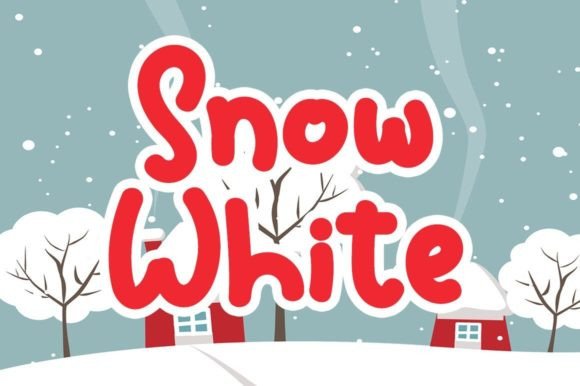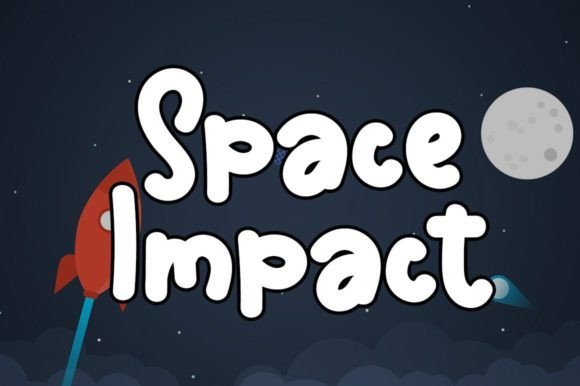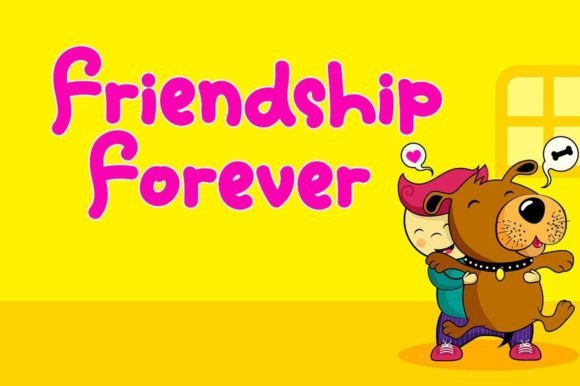
Unveiling the Charm of Behind Scene Font: Elevate Your Designs with Elegance
In the world of design, fonts play a pivotal role in conveying messages, evoking emotions, and creating lasting impressions. Among the myriad of fonts available, Behind Scene Font stands out for its unique blend of beauty, sweetness, and versatility. This article takes you behind the scenes of this stunning font, exploring its characteristics, uses, and the value it brings to designers and crafters.
The Essence of Behind Scene Font
Behind Scene Font is described as beautiful, sweet, fresh, clean, and elegant. These attributes make it an exceptional choice for a wide range of projects, from formal presentations and professional branding to informal crafts and personal blogs. Its design is centered around simplicity and readability, making it a versatile tool for any designer or crafter looking to add a touch of sophistication to their work.
Key Features of Behind Scene Font
- Fresh and Clean: The font’s clean lines and fresh appeal make it perfect for modern designs that require a crisp and contemporary look.
- Elegant and Sweet: Its elegant curves and sweet tone add a layer of sophistication and warmth, suitable for projects that aim to connect with the audience on a personal level.
- Versatility: Behind Scene Font is adaptable to various design needs, making it a valuable asset for designers who work on diverse projects.
- Joyful Touch: It brings an incredibly joyful touch to designs, making it ideal for projects that aim to evoke happiness and positivity.
Applications of Behind Scene Font
The versatility of Behind Scene Font means it can be used in a multitude of projects, including but not limited to:
- Branding and Logos: Its elegant and clean design makes it suitable for creating logos and brand identities that wish to appear modern and sophisticated.
- Web Design: For websites, especially those focused on showcasing products, services, or portfolios, Behind Scene Font can enhance the user experience with its readability and aesthetic appeal.
- Stationery and Invitations: Add a touch of elegance to your stationery, invitations, and greeting cards with this beautiful font.
- Social Media Graphics: Stand out on social media platforms with eye-catching graphics that utilize Behind Scene Font for a fresh and engaging look.
- Crafts and DIY Projects: For crafters and DIY enthusiasts, this font can add a professional and beautiful touch to handmade products and project documentation.
How Behind Scene Font Simplifies Your Design Process
Fonts are crucial design elements that can significantly influence the overall look and feel of a project. Behind Scene Font is designed with the aim of simplifying your design process while ensuring your work looks more beautiful and engaging. Here’s how:
- Consistency: Using a single, high-quality font like Behind Scene Font can help maintain consistency across your designs, making your brand or personal projects appear more cohesive and professional.
- Time-saving: With its versatile nature, you can use Behind Scene Font across various projects, saving time that would otherwise be spent selecting and pairing different fonts.
- Emotional Connection: The sweet and joyful touch it adds can help create an emotional connection with your audience, making your designs more impactful.
Behind Scene Font is more than just a typeface; it’s a design companion that can elevate your projects with its fresh, clean, elegant, and sweet characteristics. Whether you’re a professional designer or a crafter, this beautiful font offers a straightforward way to enhance your designs, making them more engaging and visually appealing. By incorporating Behind Scene Font into your design toolkit, you’re not just choosing a font; you’re embracing a design philosophy that prioritizes simplicity, elegance, and emotional connection. So, go ahead and let Behind Scene Font be the secret ingredient that makes your designs stand out and resonate with your audience.